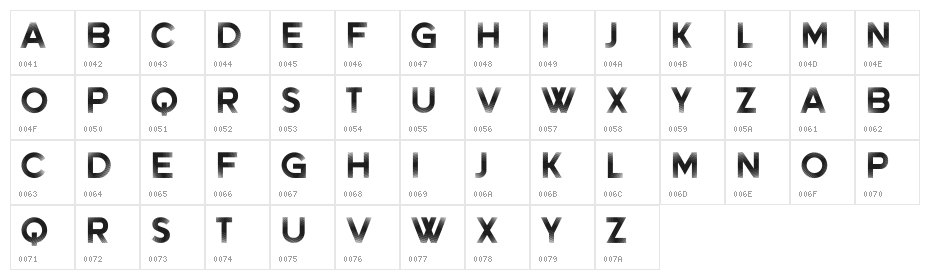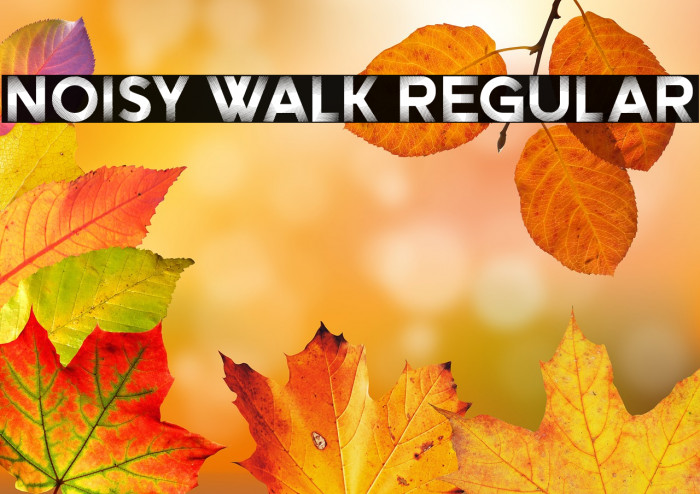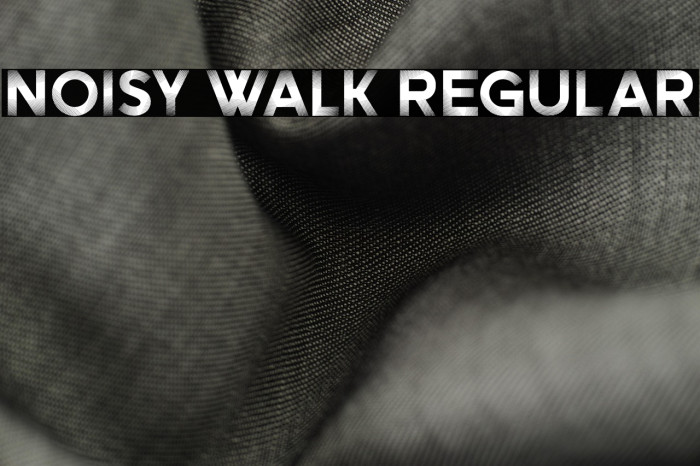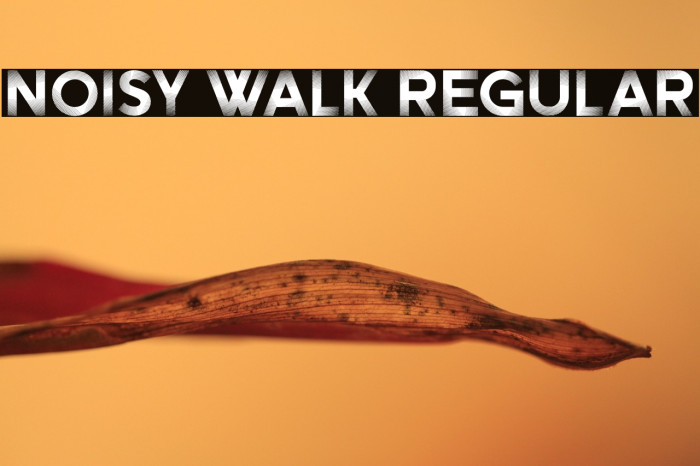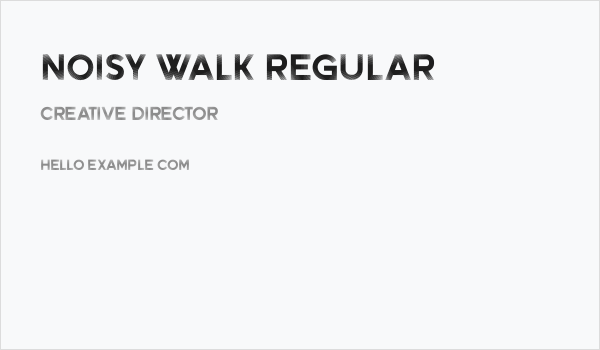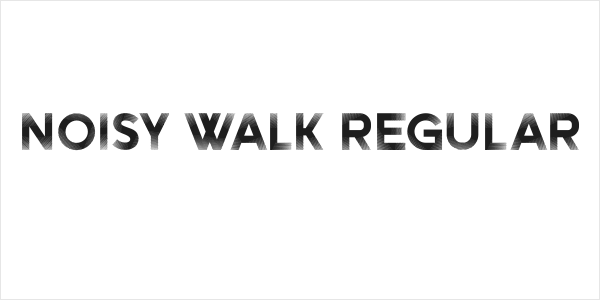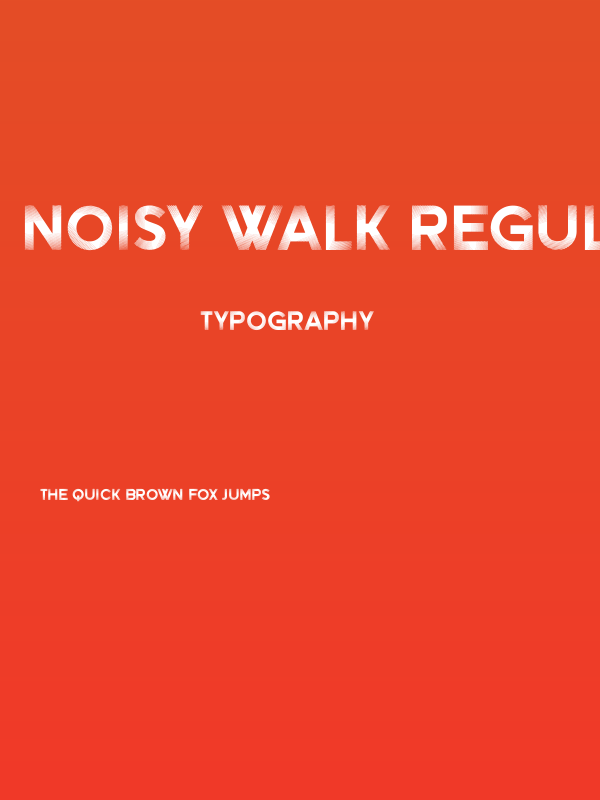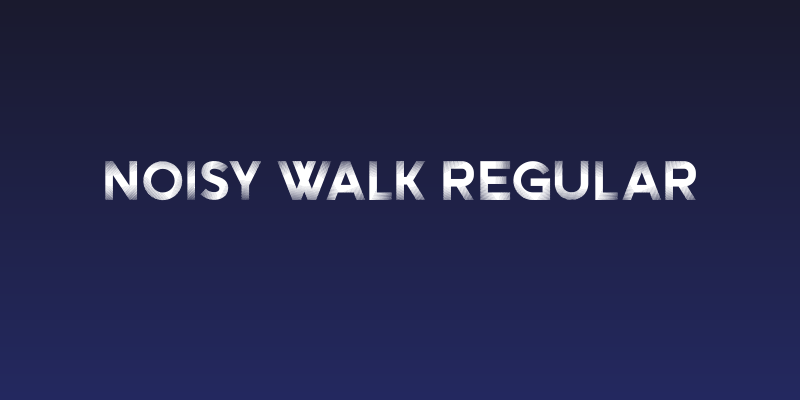
Noisy Walk Regular Font
Noisy Walk Regular Description
This font features a bold and modern design with a unique textured appearance. The characters are constructed with a series of fine lines that create a gradient effect, giving the font a dynamic and eye-catching look. The uppercase letters are uniform in height and width, providing a strong and consistent visual impact. The design is both contemporary and artistic, making it suitable for projects that require a distinctive and memorable typeface. The texture adds depth and interest, making it ideal for creative and innovative designs.
| Proposed Projects | Ideal for branding, posters, album covers, and any project needing a striking visual impact. |